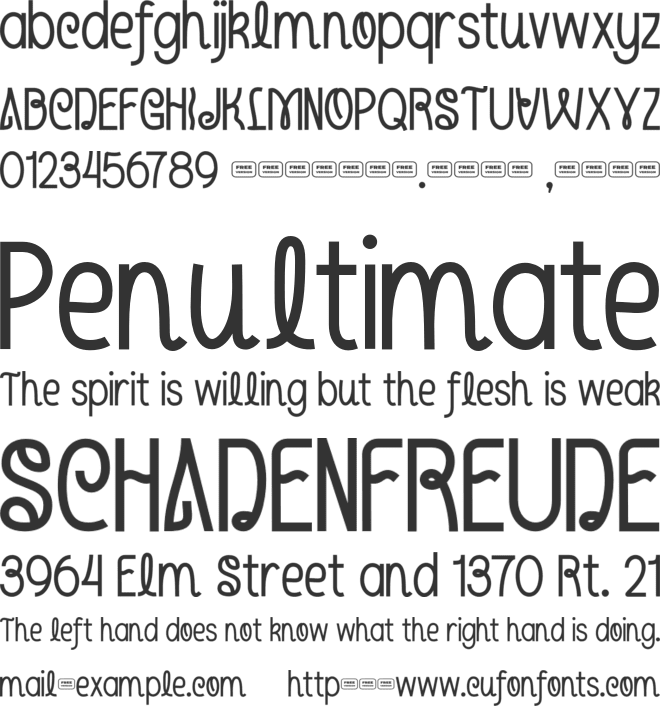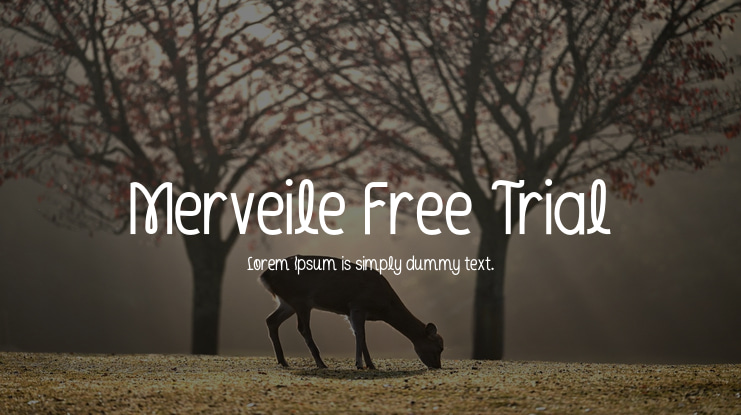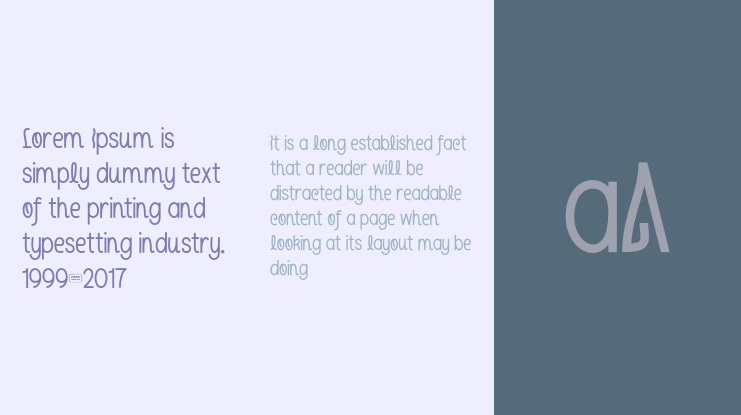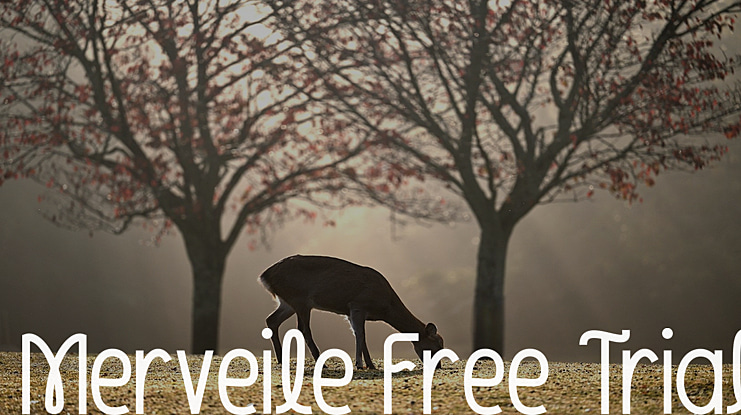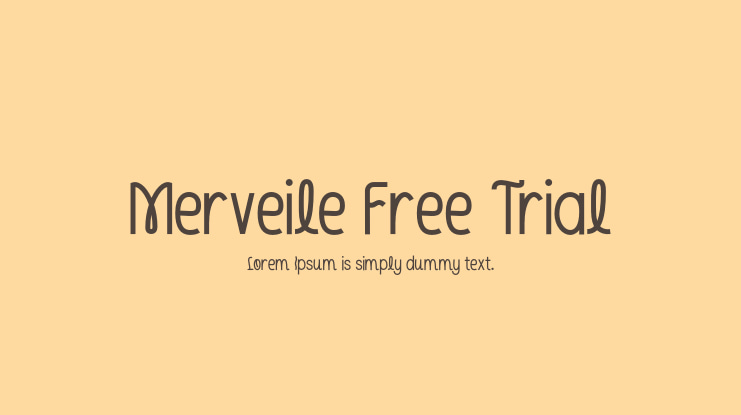
Merveile Free Trial Font
Merveile is a fancy handwritten font, carefully handcrafted to become a true favorite.
This font will look outstanding in any context, whether it’s being used on busy backgrounds or as a standalone headline!